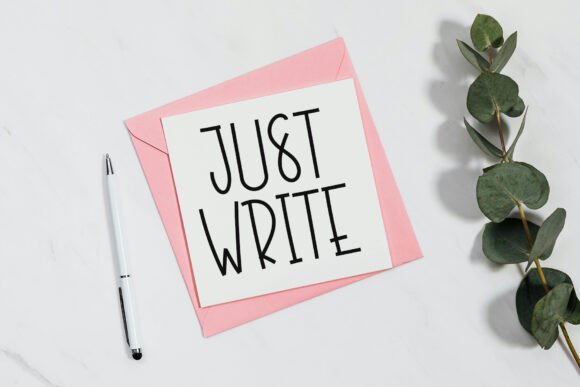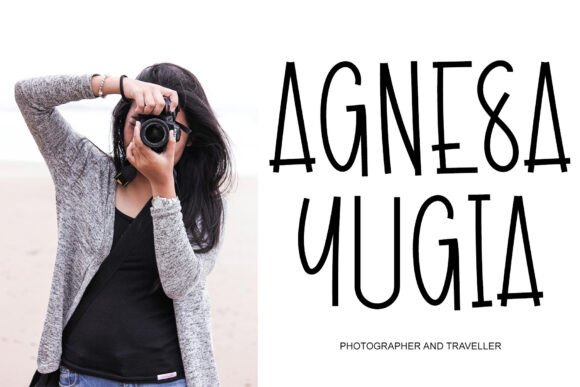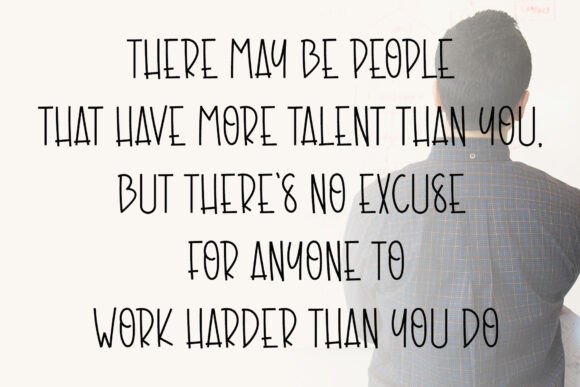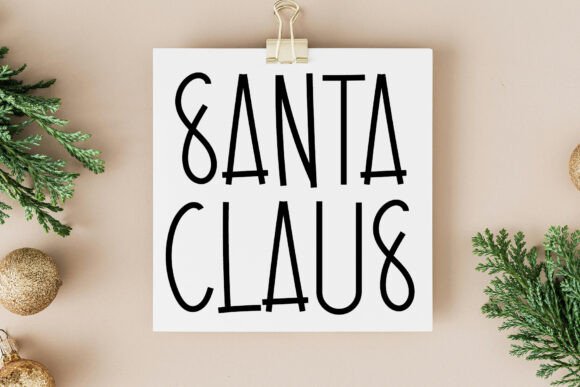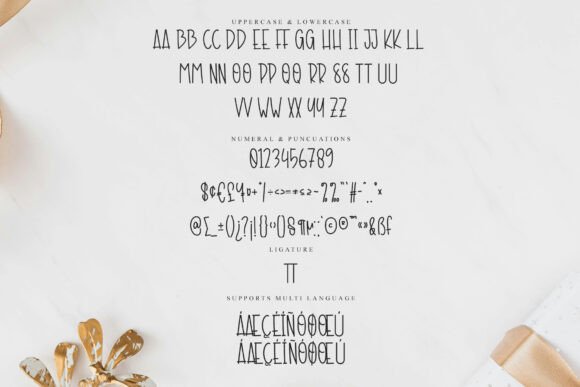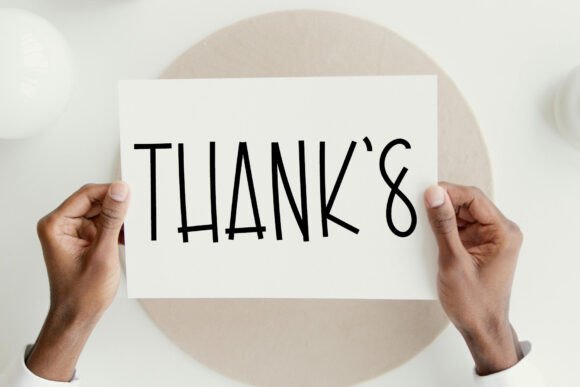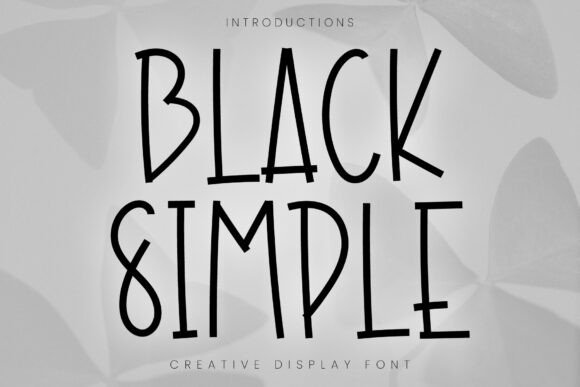
The Power of Black Simple: A Cute and Charming Display Font
I’ll never forget the moment I stumbled upon the perfect font for a project. I was working on a whimsical craft design, and my client wanted something that would make their brand stand out. I had spent hours scouring the internet for the ideal font, but nothing seemed quite right. That was until I discovered Black Simple – a cute and charming display font that instantly brightened up my design. In this article, I’ll share my experience with Black Simple, its features, and how to make the most of it in your designs.
My Honest Review of Black Simple
As a designer, I’m always on the lookout for fonts that can add a touch of personality to my projects. Black Simple did not disappoint. Here’s what I love about it:
- ✨ Cute and charming: Black Simple has a whimsical feel that’s perfect for crafty designs, branding, and more.
- ✅ Easy to read: Despite its playful nature, Black Simple remains clear and legible, even at smaller sizes.
- 🌈 Versatile: This font can be used for a wide range of projects, from invitations and labels to social media graphics and more.
Of course, no font is perfect, and Black Simple has a few quirks:
- 🤔 Limited use in body text: While Black Simple is amazing for headlines and titles, it may not be the best choice for longer body text.
A Practical Guide to Using Black Simple
The Story Behind Black Simple
Black Simple was designed with the intention of creating a font that’s both cute and versatile. Its creator aimed to craft a font that would inspire creativity and bring a touch of whimsy to designs. While the exact story behind Black Simple might be unknown, its impact on the design community is undeniable.
| What type of projects is Black Simple best suited for? | Black Simple is perfect for crafty designs, branding, social media graphics, invitations, and more. |
Black Simple has become a staple in my design toolkit, and I’m confident it can do the same for you. With its cute and charming personality, this font is sure to brighten up your designs and bring a touch of whimsy to your projects.